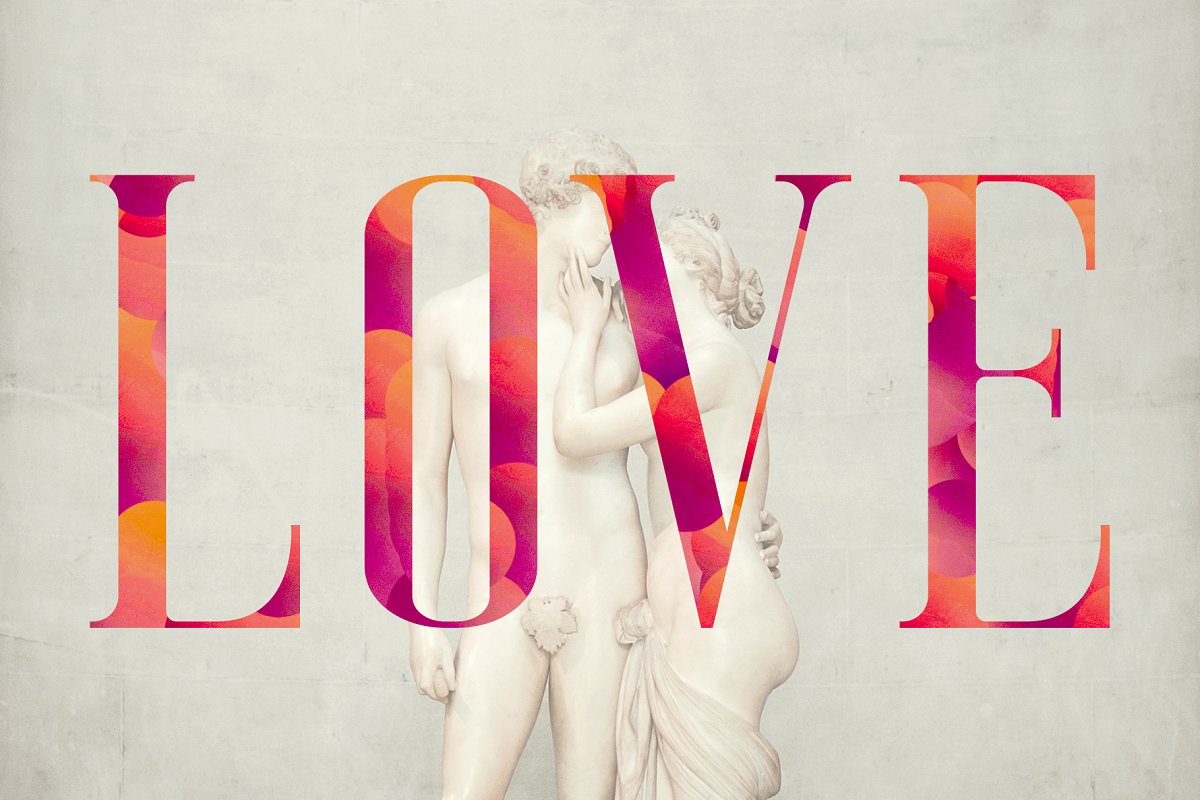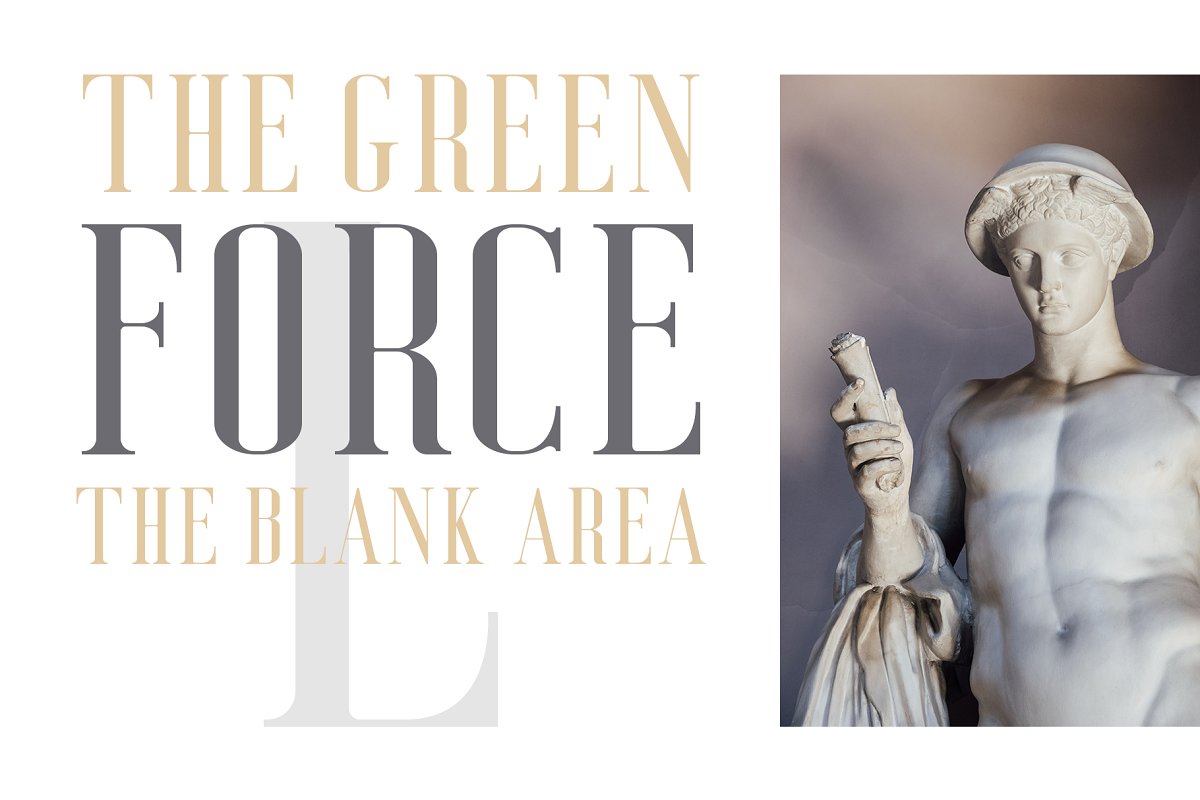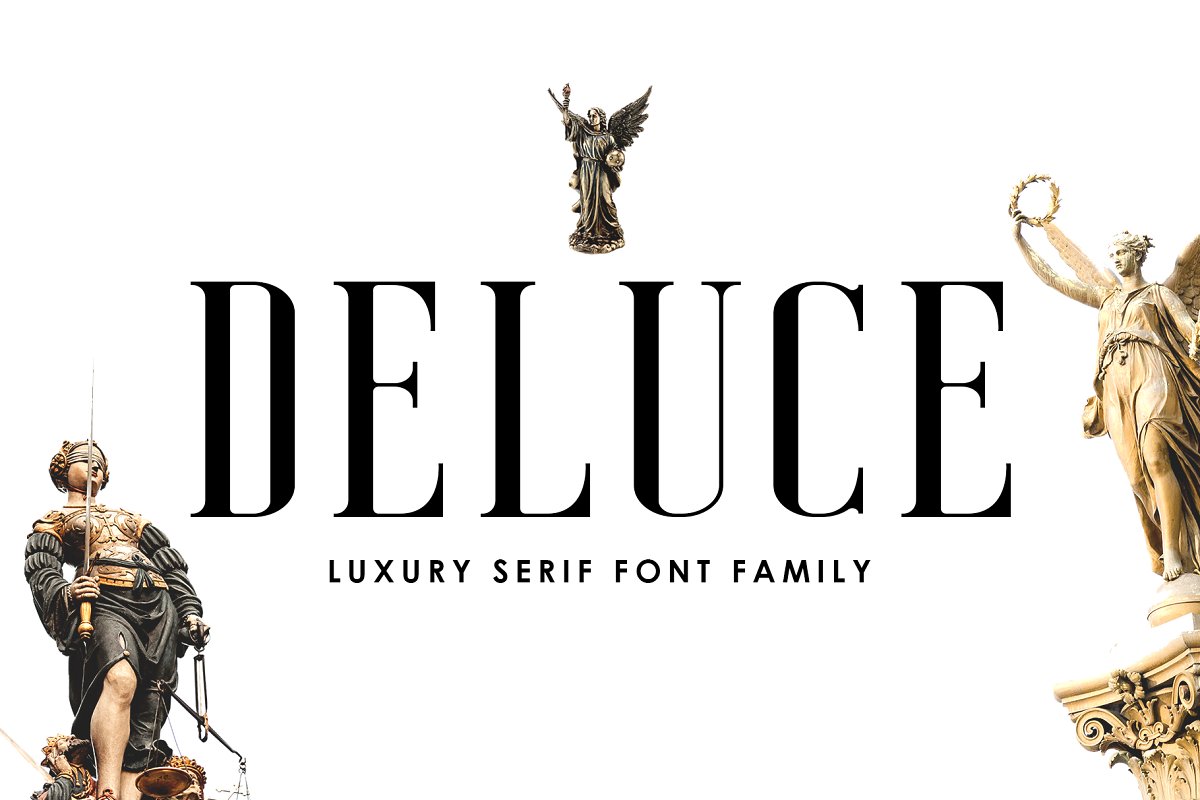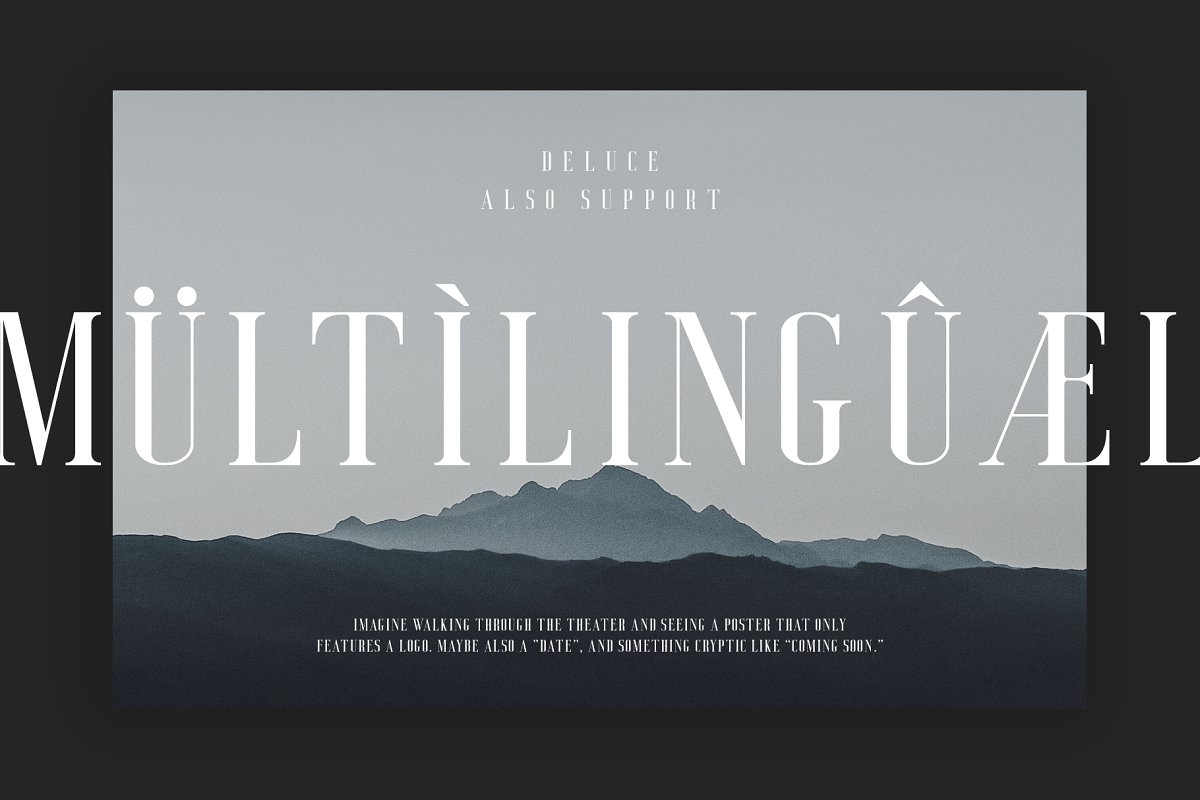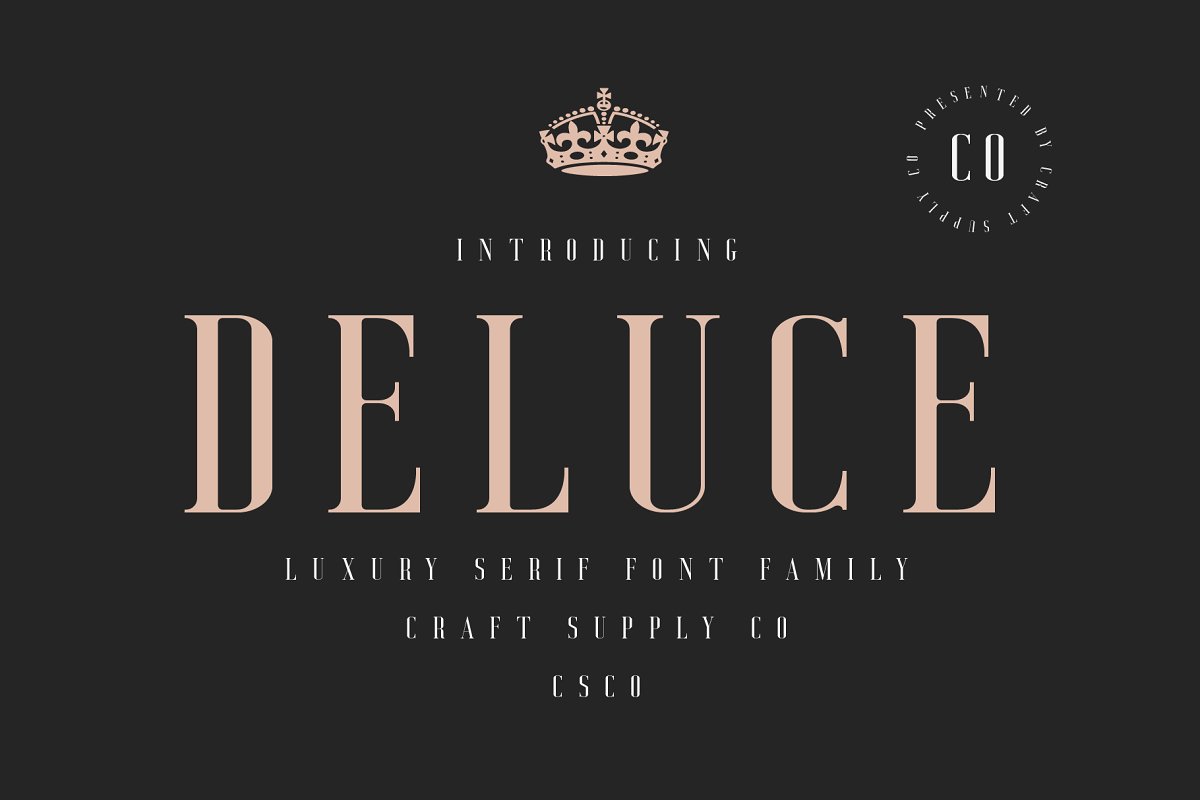
Deluce Serif Font
Deluce Serif Font – Free Demo
Hello brother and sister! I would like to introduce you to a special typeface that I like, I used it for one of my works, and my client was satisfied. Introducing Deluce Typeface. Deluce – Luxury Serif Font is a modern serif font family whose design refers us to the style of transitional serifs. The distinctive features of Deluce – Luxury Serif Font are the relatively low contrast of strokes, the slightly squarish shapes of round characters and the emphasized businesslike nature. By combining a variety of styles Deluce – Luxury Serif Font is suitable for Logo, greeting cards, quotes, posters, branding, name card, stationary, design title, blog header, art quote, typography